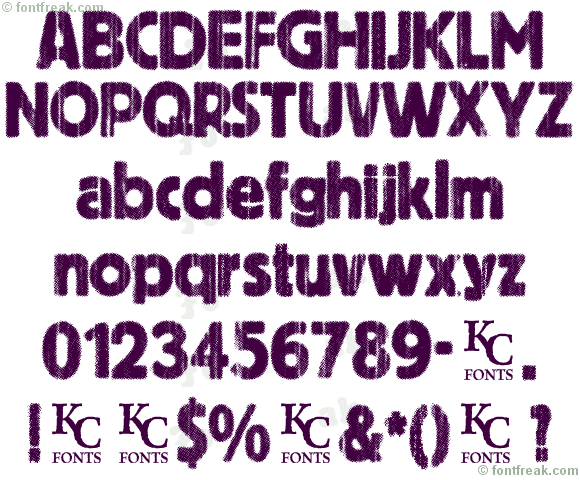
IndiePress
About IndiePress
IndiePress, designed by Kevin Christopher in 2011, is a captivating display font that embodies a unique blend of modern flair and handcrafted charm. This freeware font stands out in the decorative category, featuring bold, rounded letterforms that convey a sense of warmth and approachability. The stroke weight is consistent throughout, with minimal contrast, making it easy to read while still retaining a playful character. The spacing between characters is well-balanced, ensuring clarity in various applications, while the subtle texture adds a tactile quality that enhances its visual appeal.
IndiePress is an excellent choice for a variety of creative projects. Its vibrant personality makes it particularly suitable for wedding invitations, where a touch of whimsy is desired. It also works wonderfully for movie posters, providing a contemporary edge that captures attention. Restaurant menus can benefit from its inviting nature, appealing to diners and enhancing the overall dining experience. Additionally, IndiePress is perfect for branding initiatives, especially for small businesses looking to convey a friendly and innovative image. Content creators will find it an engaging choice for social media graphics, helping to elevate their visual storytelling.
Targeting graphic designers and small business owners, IndiePress offers a fresh alternative in a sea of conventional fonts. Its distinctive style allows for versatile applications, appealing to a broad audience seeking to stand out. The IndiePress font free download is an opportunity for creatives to incorporate this unique typeface into their projects without any cost. What truly sets IndiePress apart is its ability to bring personality and character to any design, making it a go-to choice for those looking to make a lasting impression.